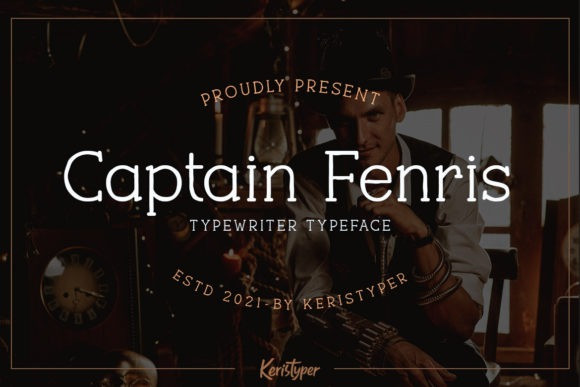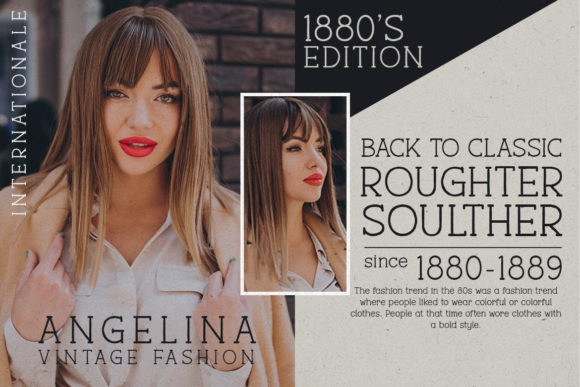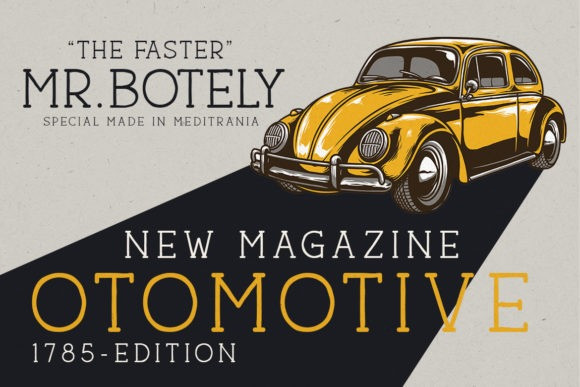
Captain Fenris Font
Captain Fenris is a custom made serif font with a vintage and casual personality. It will look great on text typography, logotypes, marketing graphics, display, branding, package and advertisement design and anything in between.